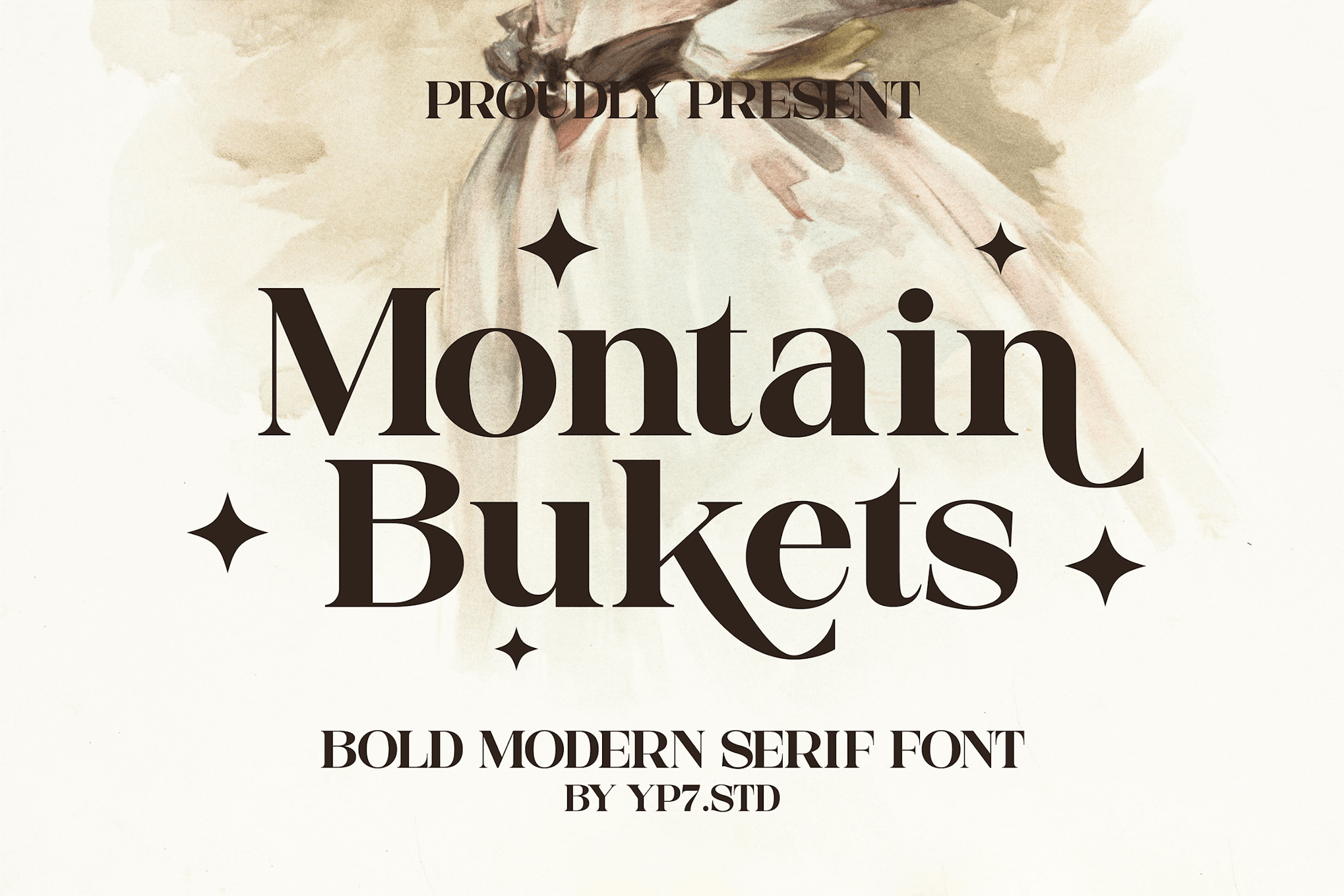
Modern Serif Font
Modern Serif Font sophisticates contemporary editorial designs, luxury brand identities, premium publishing projects, upscale restaurant menus, elegant corporate communications, refined marketing materials, high-end fashion campaigns, prestigious event invitations, sophisticated web typography, contemporary book covers, professional business presentations, and polished brand guidelines where modern sophistication and classical elegance create timeless communication excellence.
This distinguished typeface generates excitement through its masterful evolution of traditional serif principles into contemporary design excellence that creates typography bridging classical heritage with modern innovation. Modern Serif Font embodies the perfect balance between time-honored typographic tradition and cutting-edge design sensibilities with its refined letterforms that honor serif heritage while embracing contemporary aesthetic demands. The font's sophisticated design approach incorporates classical proportions with modern optical refinements, creating typography that feels both familiar and refreshingly current. Its distinctive character reflects the confidence, sophistication, and timeless appeal that define exceptional modern typography and premium brand communications.
The Modern Serif Font family encompasses comprehensive contemporary variations including Thin, Light, Regular, Medium, Semi-Bold, Bold, and Heavy weights, each available in Roman and Italic styles. The collection features refined serif constructions, contemporary spacing systems, and modern details that enhance its sophisticated aesthetic. Advanced typography features include multiple numeral styles, extensive language support, small capitals, elegant ligatures, and precision-engineered kerning that meets the demanding requirements of professional publishing and luxury brand applications.
Whether you're designing contemporary brand guidelines, creating sophisticated marketing campaigns, developing premium publishing projects, or building elegant corporate identities, Modern Serif Font delivers unmatched contemporary sophistication. Its ability to convey modern elegance, professional authority, and timeless quality makes it invaluable for brands seeking typography that embodies contemporary refinement without sacrificing classical dignity. The font's sophisticated presence ensures your designs will communicate the polished excellence and modern sophistication that define exceptional contemporary communications and premium brand experiences.